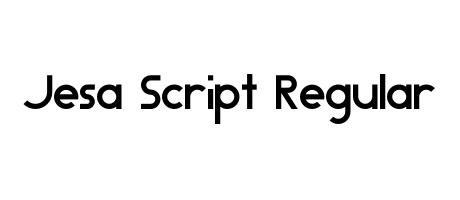
Jesa Script
By Flo Crusher
Jesa Script Regular: A contemporary sans-serif typeface, Jesa Script Regular boasts a clean, modern aesthetic. Its rounded terminals and consistent stroke weight provide a sense of balance and readability. The subtle curves subtly hint at a calligraphic influence, blending modernity with a touch of elegance. It’s versatile enough for both headings and body text.